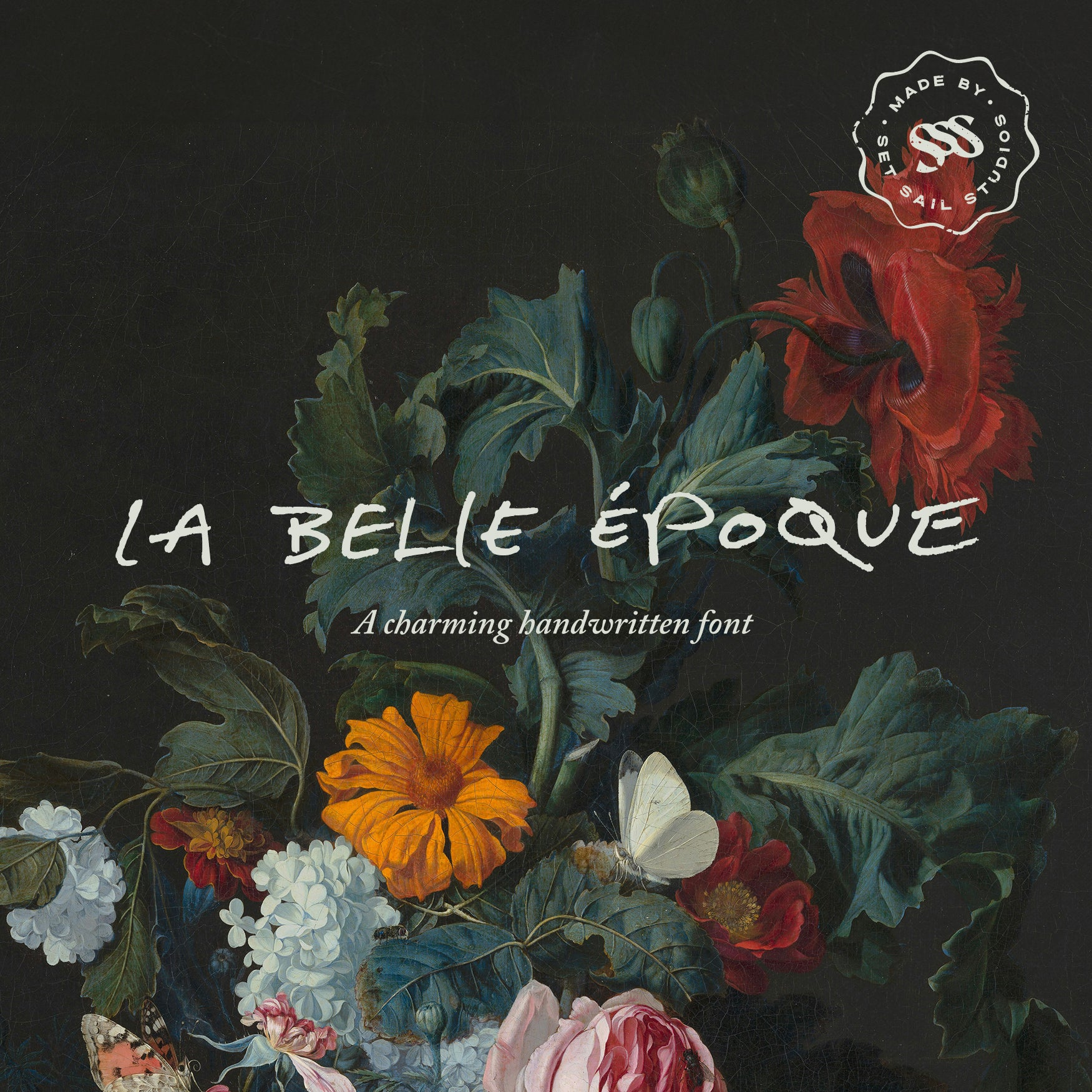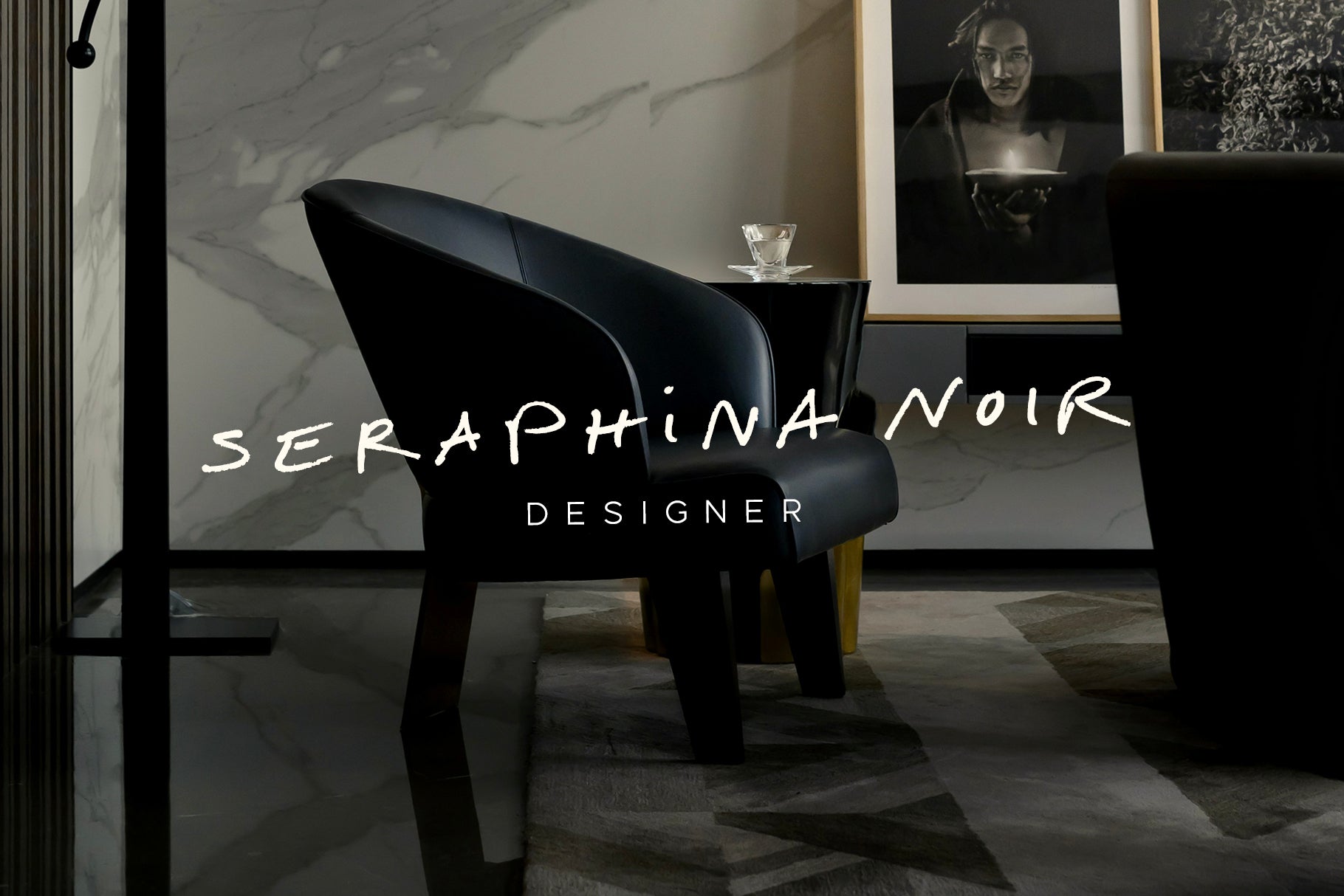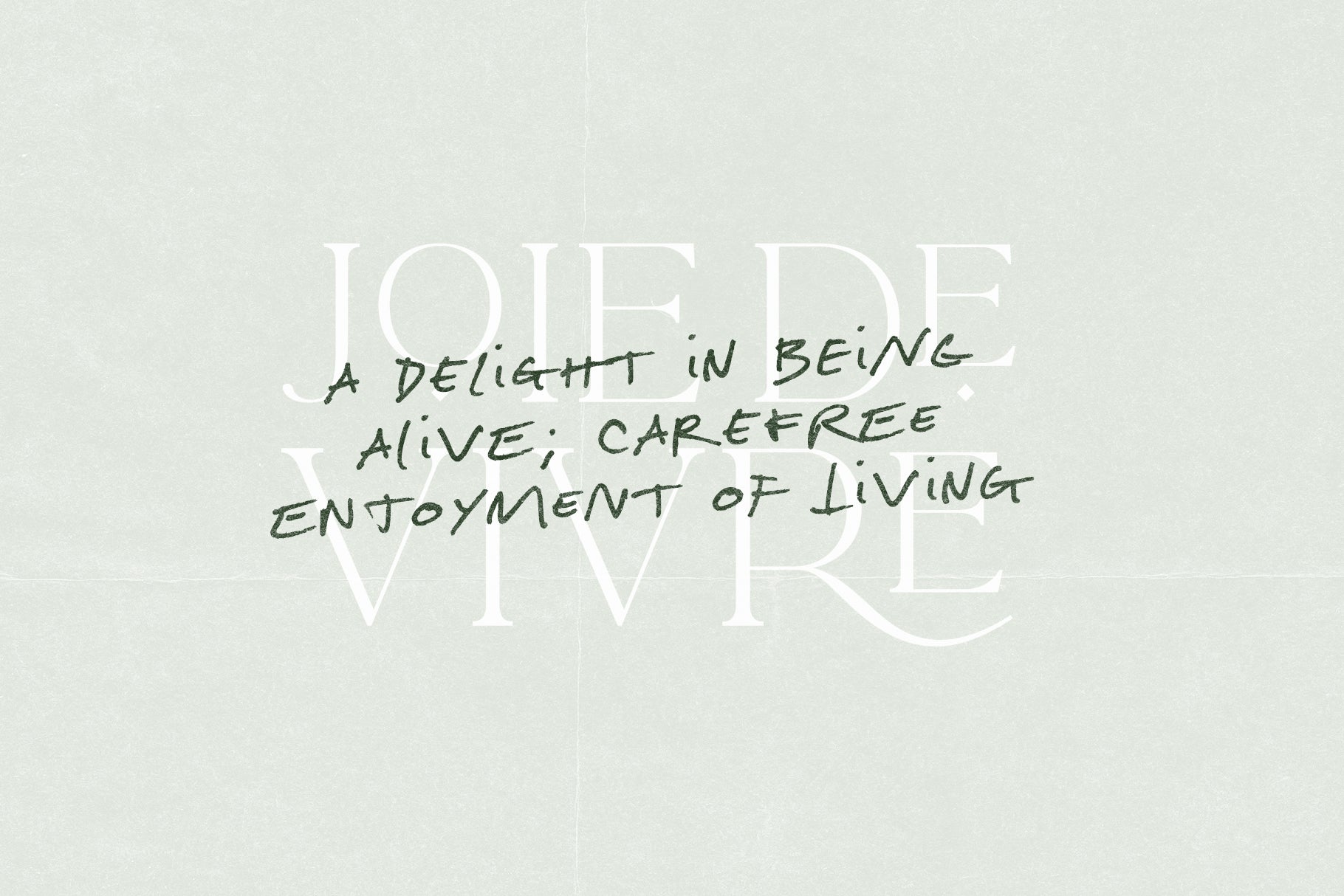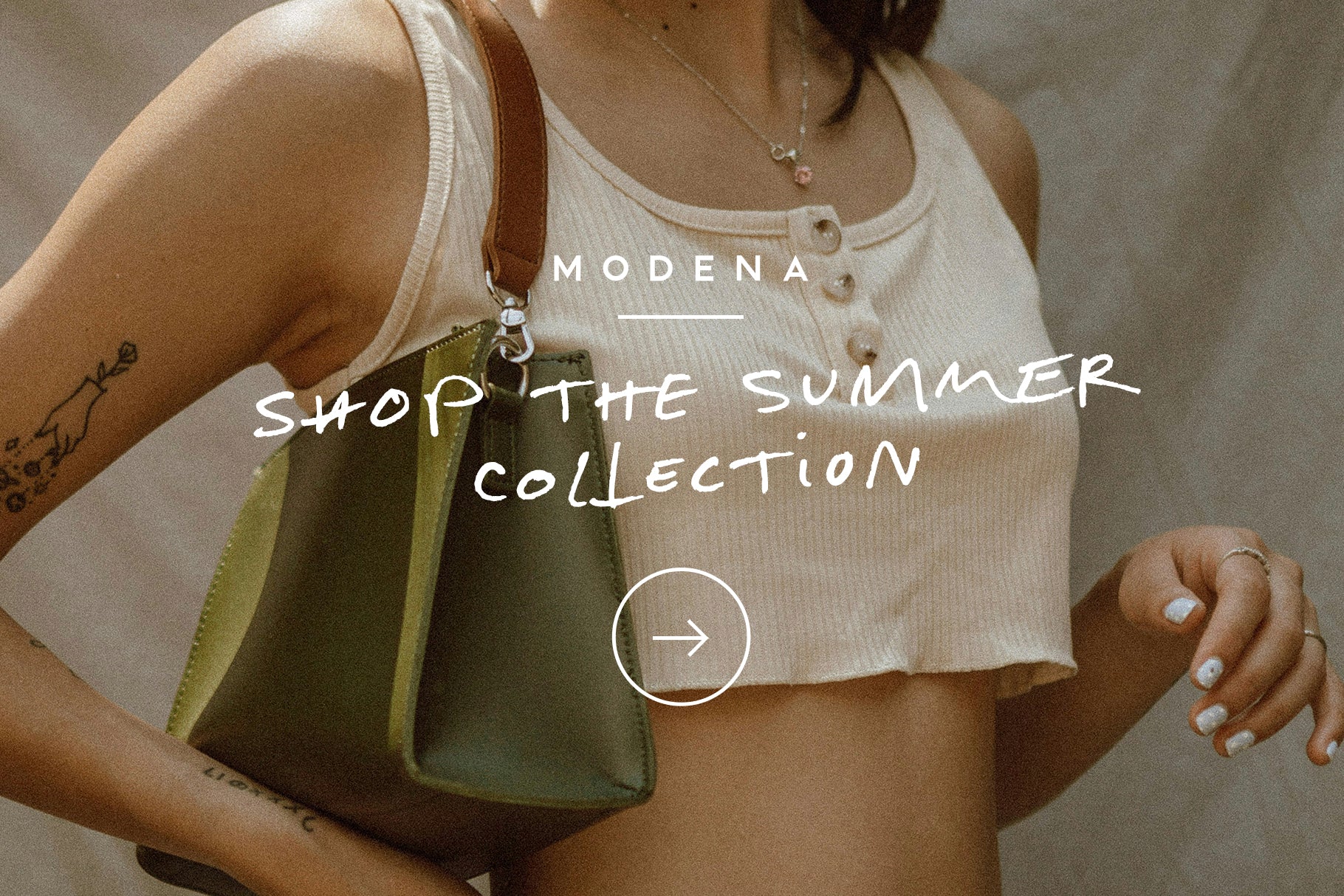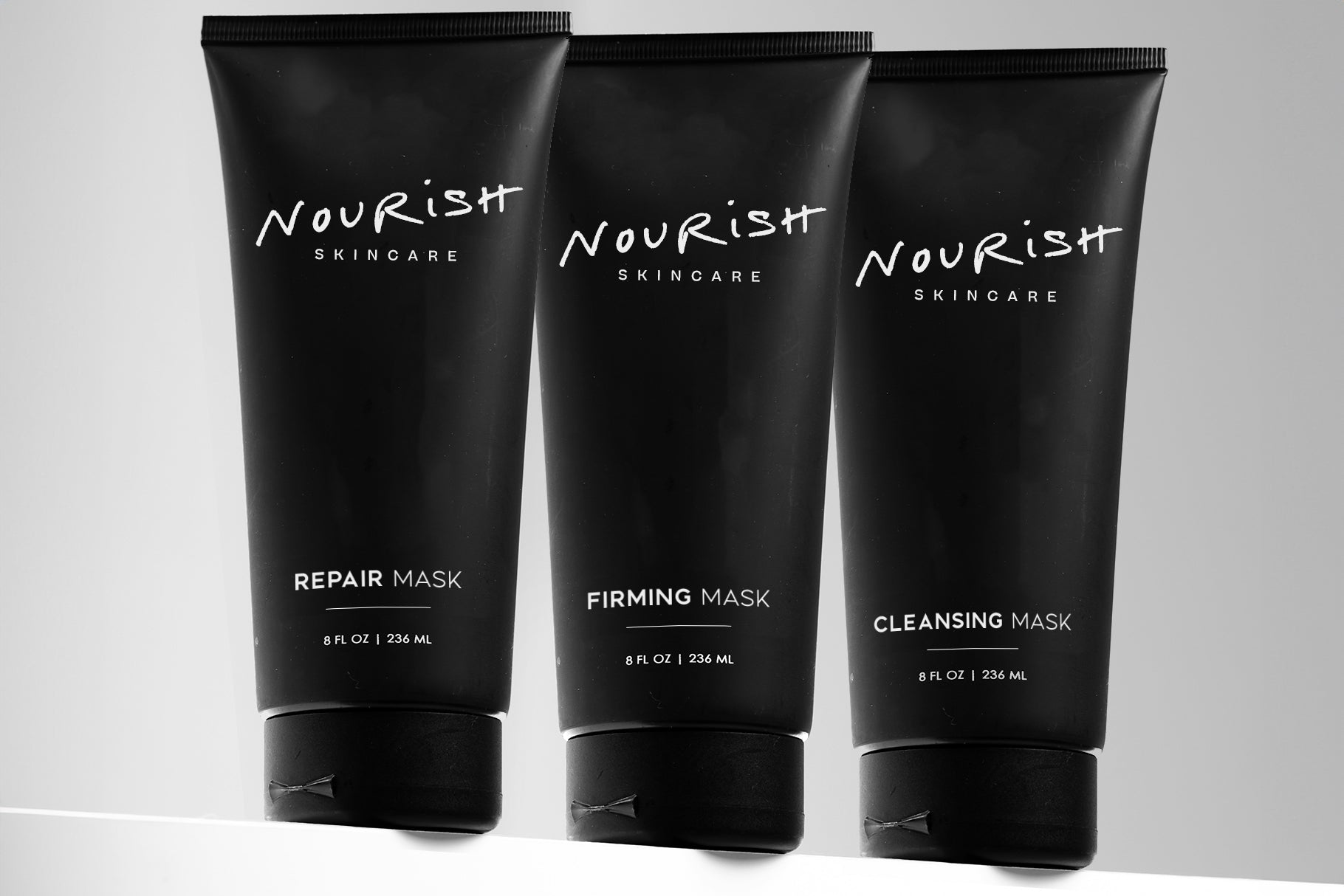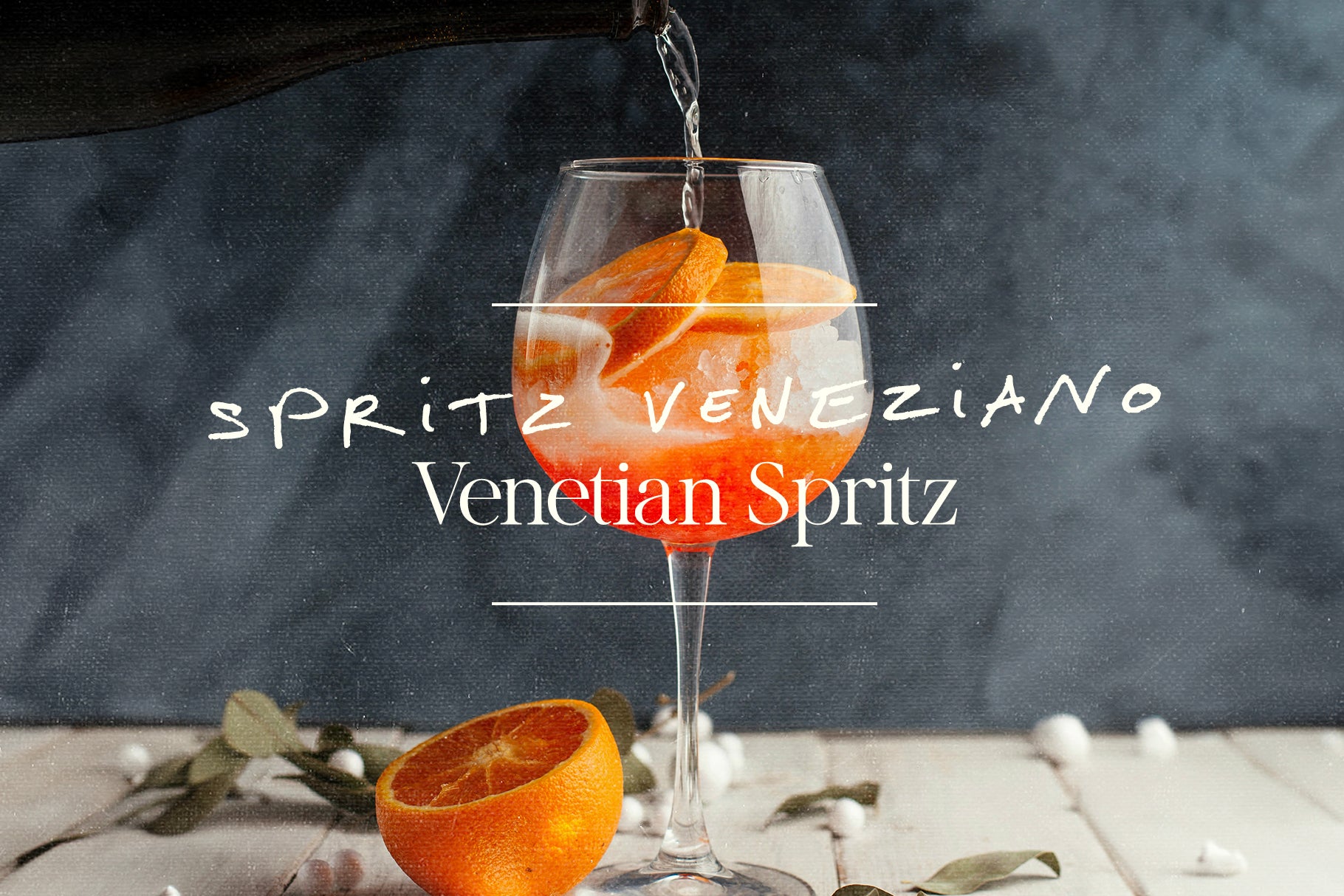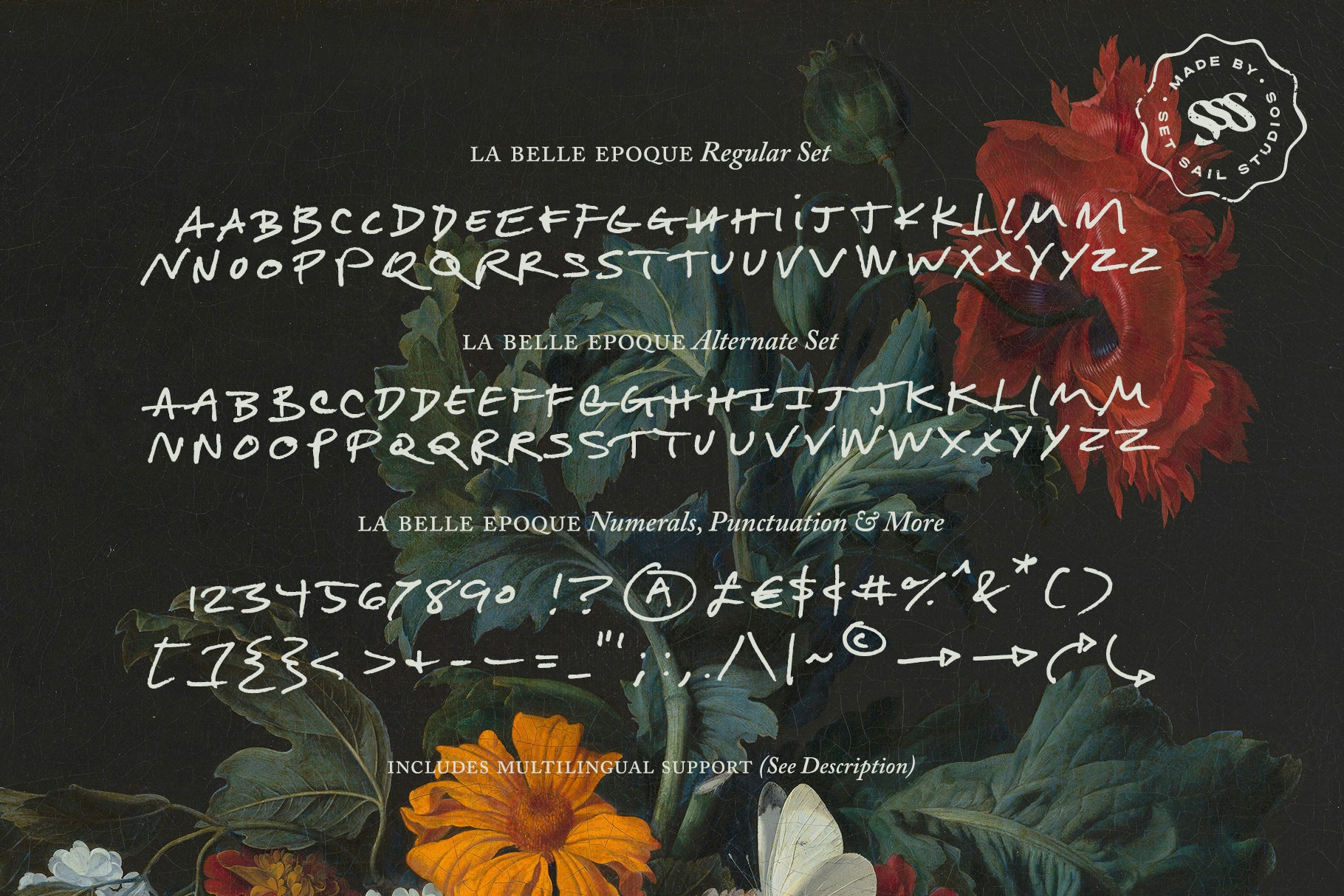
La Belle Epoque Handwritten Font
La Belle Epoque Handwritten Font is an all-caps font featuring fast signature-style strokes and textured ink, available in a Regular set and an Alternate set, providing a total of four letter variations for customizable text layouts. It supports multiple languages, including English, French, Spanish, and German.